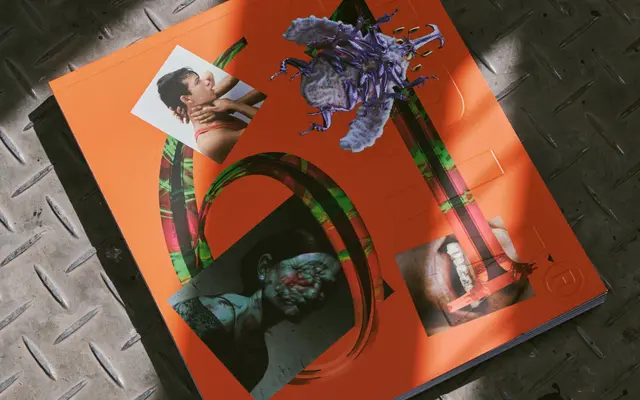
Pangram Sans Rounded
Pangram Foundry · Mat Desjardins, Valerio Monopoli · 2021
A rounded variant of Pangram Sans offering 144 styles across six width subfamilies, with variable font support and Cyrillic coverage.
Built on the same geometric skeleton as Pangram Sans, this family softens the original with rounded terminals to produce a warmer, more approachable character. Six subfamilies spanning Compressed through Normal each carry 24 styles plus a variable cut, with italic and Cyrillic support throughout. The bolder weights are where the rounded forms make their strongest impression, making the family well suited to branding and packaging work.
A geometric sans-serif with rounded terminals, explicitly positioned as a friendlier variant of Pangram Sans. The rounded stroke endings and geometric construction place it firmly in the rounded geometric sans tradition.